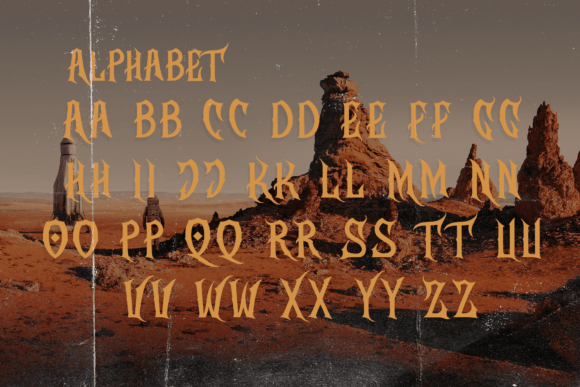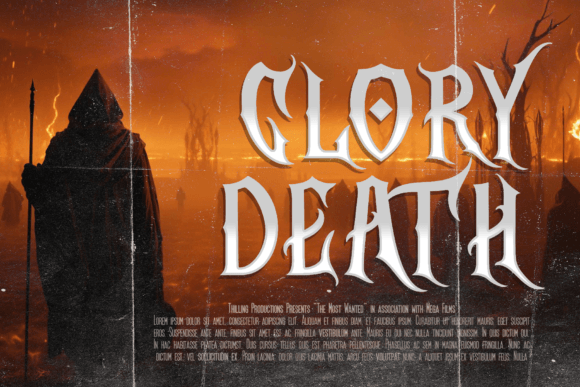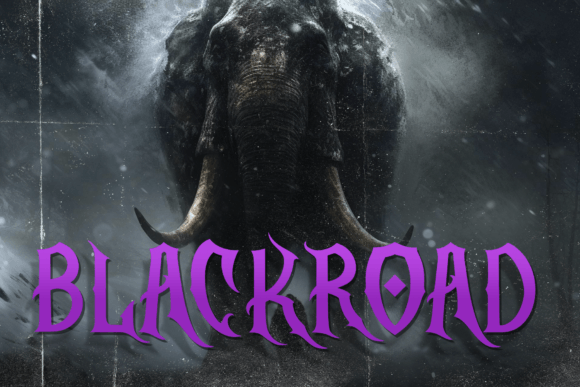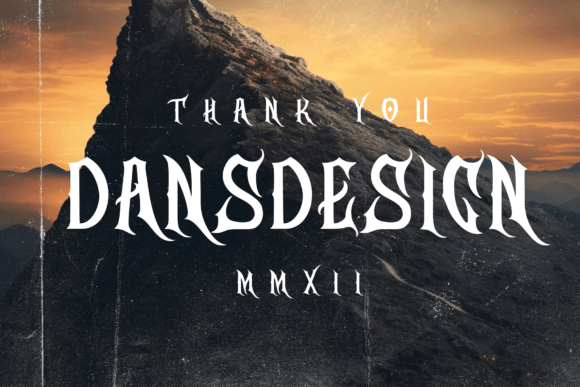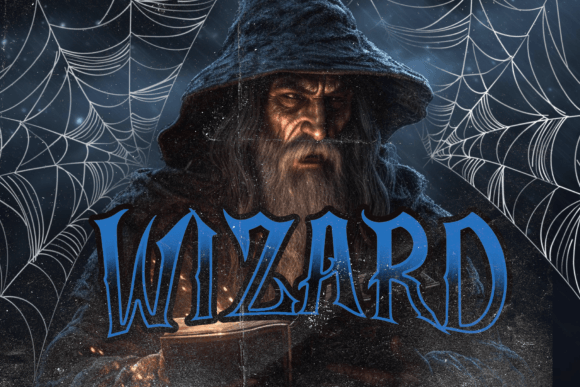
Introduction to Lord Wizard Font
As designers, we’ve all been there – staring at a blank canvas, searching for that perfect font to bring our creative project to life. The hours tick by, and still, nothing seems to match the vision in our minds. But what if we told you there’s a font so striking, so uniquely detailed, that it could instantly elevate your design from ordinary to extraordinary?
Enter the Lord Wizard Font, a majestic Blackletter font that exudes elegance and sophistication. This high-quality font is a treasure trove of design possibilities, perfect for those who dare to be bold and unafraid to take risks. With its transparent background and free download availability, it’s an invaluable resource for designers looking to add a touch of magic to their work.
Whether you’re crafting a logo, designing a tattoo, or creating a vintage-inspired masterpiece, the Lord Wizard Font is the perfect companion for your creative journey.
Key Features of Lord Wizard Font
- Unique and elegant design, perfect for a creative project or fantasy theme
- Designed to be highly legible, even at small font sizes, making it ideal for a variety of applications
- Perfect for designers, artists, and writers looking for a unique and high-quality design resource
- Can be used in a variety of creative projects, including books, magazines, posters, and more
Honest Review: Lord Wizard Font
As a designer, I’ve had my fair share of fonts, but the Lord Wizard Font has caught my attention. The first thing that stands out is the high quality of the design. The intricate details and elegant strokes make it perfect for any creative project that requires a touch of magic.
One of the best features of the Lord Wizard Font is its versatility. It can be used for a variety of purposes, from fantasy novels to video games, and even as a design resource for branding and marketing materials. The transparent background option also allows for seamless integration with any image or design element.
- High-quality design with intricate details and elegant strokes
- Transparent background option for seamless integration
- Perfect for fantasy and creative projects
- May not be suitable for formal or professional projects
- Limited font styles and variations
Overall, I’m impressed with the Lord Wizard Font. While it may have some limitations, its unique design and versatility make it a valuable addition to any designer’s toolkit. Whether you’re working on a fantasy novel or a video game, this font is sure to add a touch of magic to your project.
Tips for Getting the Most Out of Lord Wizard Font
To get the most out of the Lord Wizard Font, use it in combination with other high-quality design resources. Experiment with different font sizes, colors, and styles to create unique and eye-catching designs. The font’s transparent background makes it easy to use in combination with other design elements.
The Lord Wizard Font is perfect for a variety of creative projects, including graphic design, social media posts, and presentations. Its unique style and high quality make it a valuable design resource for anyone looking to create professional-looking designs.